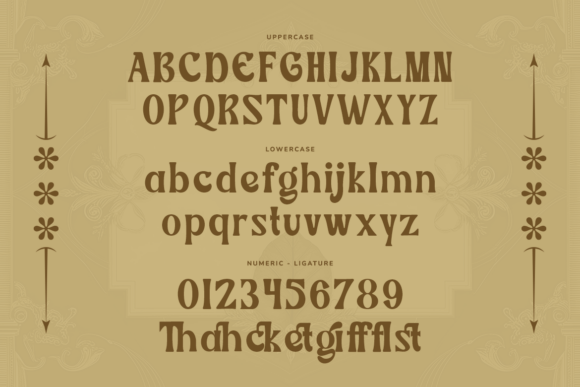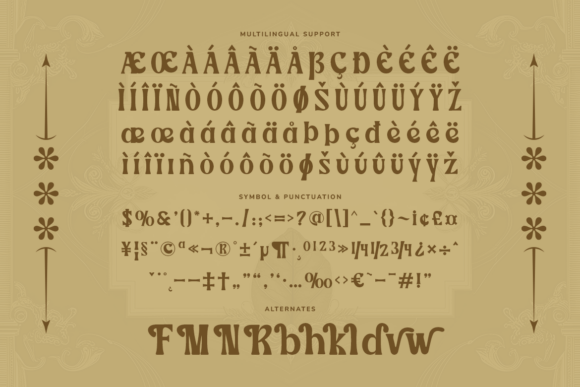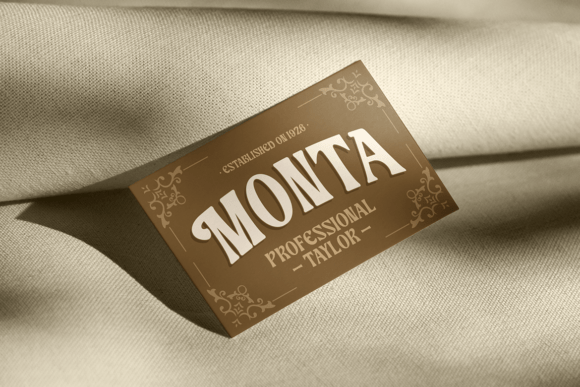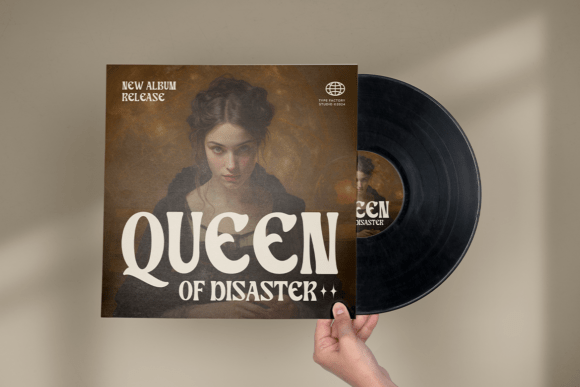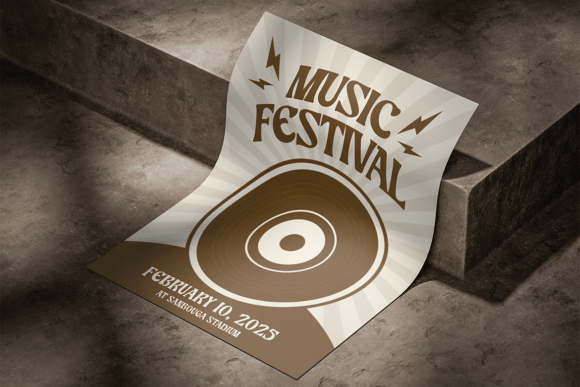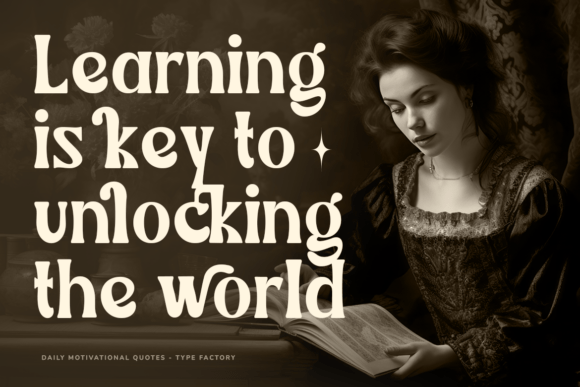
Unleashing the Charm of the Raginhe Font
Have you ever been working on a creative project and stumbled upon the perfect font to bring your vision to life? For many designers, this moment is pure magic. It’s the spark that sets the tone for the entire project and elevates the message you’re trying to convey. For me, that moment came when I discovered the Raginhe Font.
This vintage serif typeface is a design resource that’s hard to resist. With its soft curves, distinctive serifs, and slightly condensed proportions, the Raginhe Font is a masterclass in classic print lettering and old-style editorial typography. Whether you’re working on a display setting or need a high-quality font for a branding system, the Raginhe Font is an excellent choice. And the best part? It’s available for free download, making it an accessible design resource for creatives of all levels.
- Unique, modern design that can add a touch of elegance and sophistication to any creative project.
Honest Review: Raginhe Font
I recently stumbled upon the Raginhe Font, and I must say it’s a great addition to any designer’s toolkit. This free download is perfect for creative projects that require a unique touch.
- ✨ The Raginhe Font has a beautiful, high-quality design that’s perfect for titles and headings.
- ✨ It comes with a transparent background, making it easy to layer over images or other design elements.
- ✨ The font is highly versatile and can be used for a variety of design styles, from modern to vintage.
- ⚠️ The Raginhe Font is a bit limited in terms of character sets, which may not be suitable for projects that require extensive typing.
- ⚠️ Some users may find the font a bit too bold or overpowering, depending on the design context.
Overall, I’m impressed with the Raginhe Font’s unique design and high-quality feel. While it may have some limitations, it’s a great resource for designers looking to add some flair to their creative projects. I’d definitely recommend it for anyone looking for a free, high-quality font.
Raginhe Font is a high-quality, free design resource perfect for creative projects that require a unique and stylish touch. With its transparent background, this font can be easily customized to fit any design need.
Raginhe Font is perfect for creative projects such as graphic design, web design, and social media graphics. It can also be used for presentations, reports, and other business documents where a stylish and professional font is required.